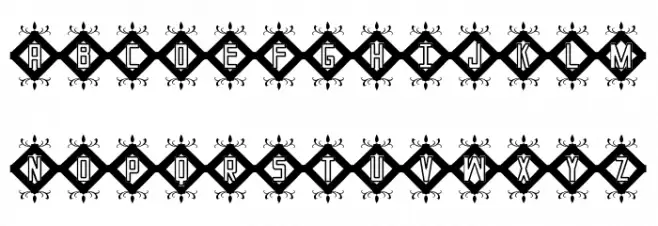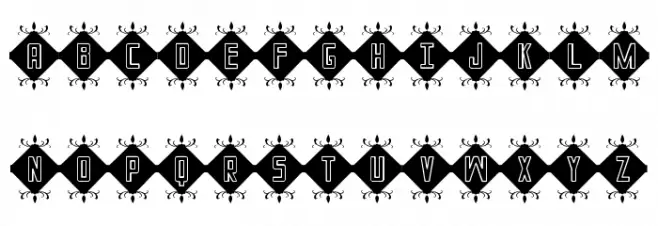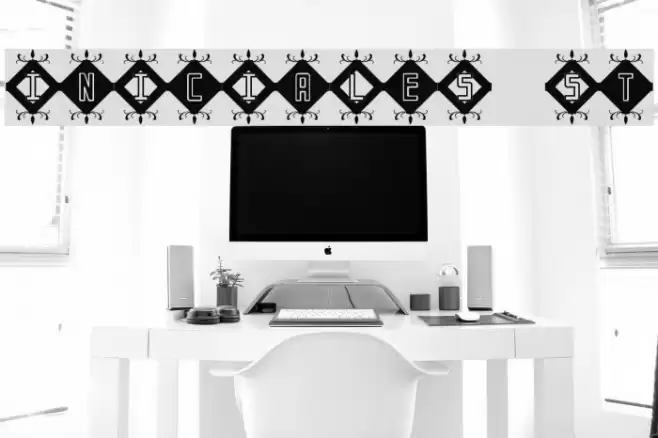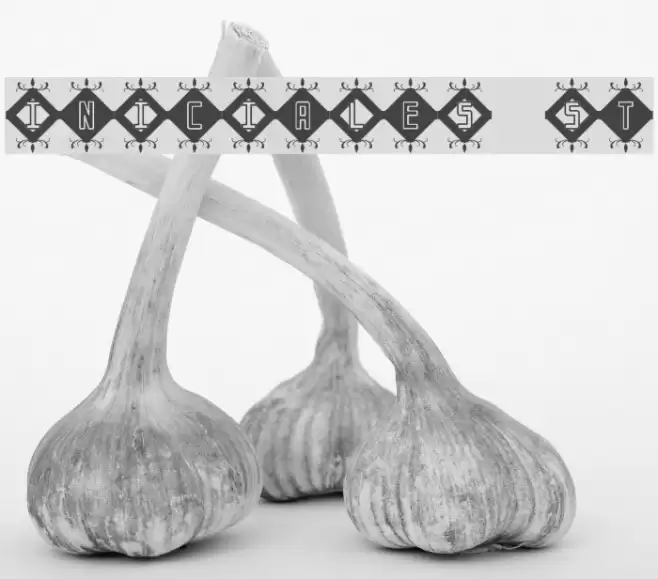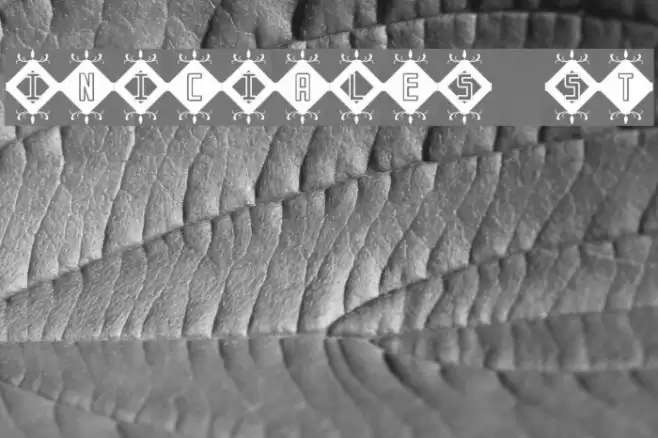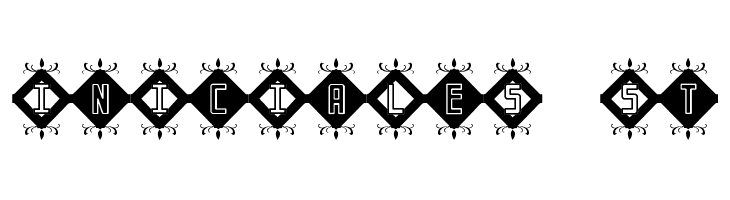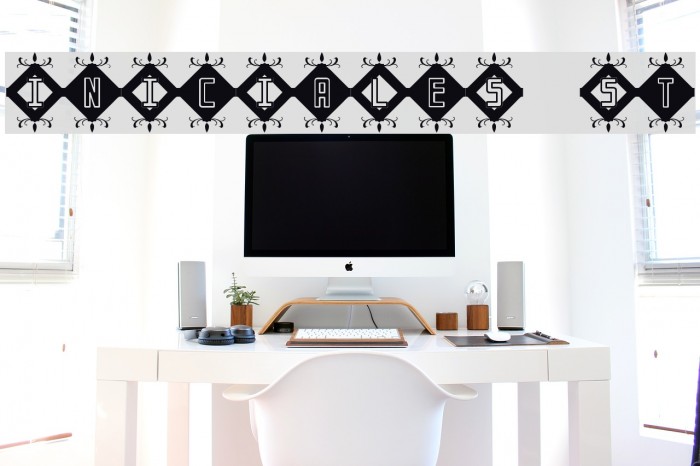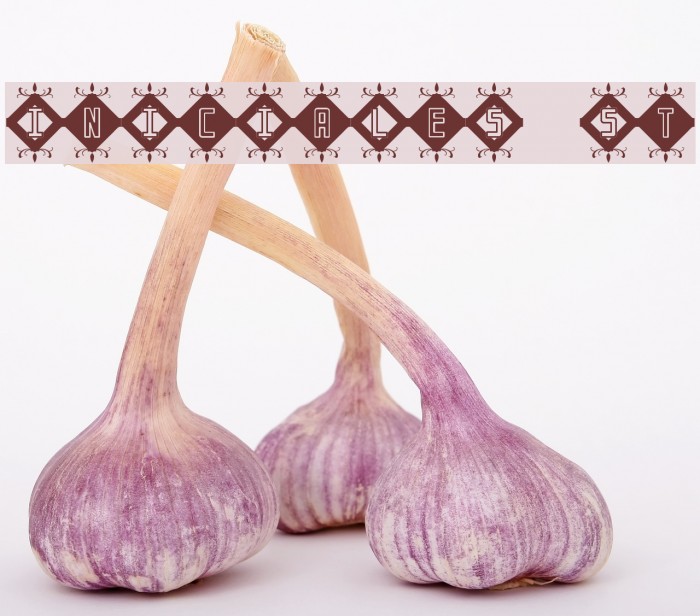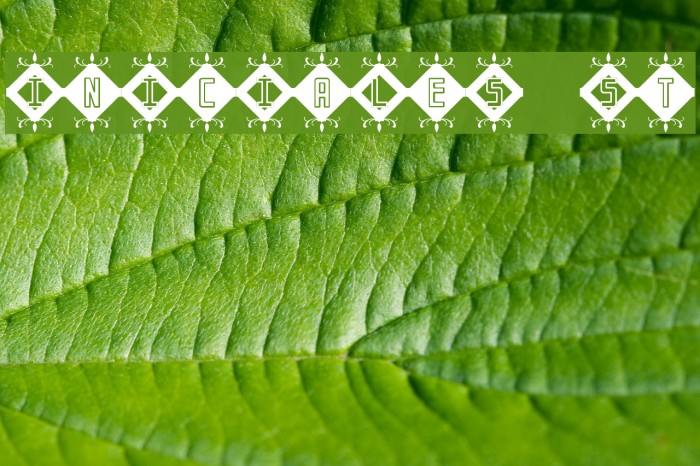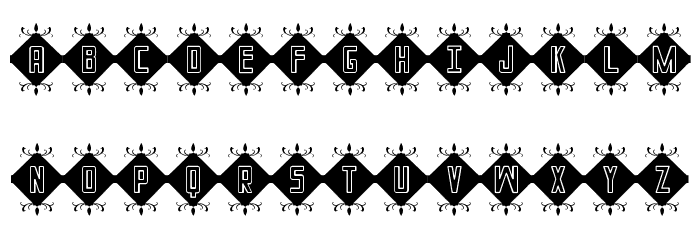
InIcIaLeS St
This font features a unique and decorative style, with each character enclosed within a diamond shape that is adorned with intricate, symmetrical designs resembling crabs. The letters themselves are geometric and bold, with a modern, angular appearance that contrasts with the ornate background. The uppercase letters are consistent in height and width, creating a uniform look across the alphabet. The overall aesthetic is both playful and sophisticated, making it suitable for creative and artistic projects. The font's distinctiveness is enhanced by the detailed embellishments surrounding each character, adding an extra layer of visual interest.
A decorative font with geometric letters enclosed in ornate diamond shapes.
- Proposed Projects: Ideal for creative projects such as logos, posters, and invitations where a unique and artistic touch is desired.
- Contrast: High
- Overall Style: Decorative
- Use Case: Logos, Posters, Invitations